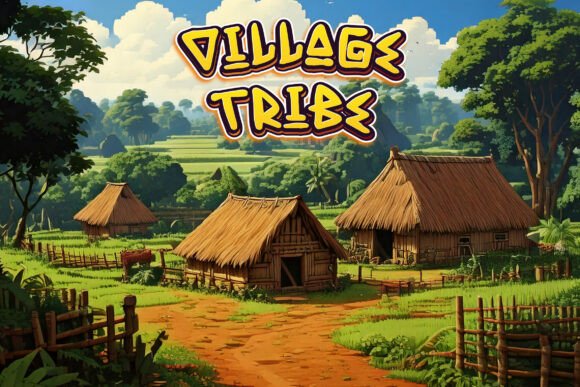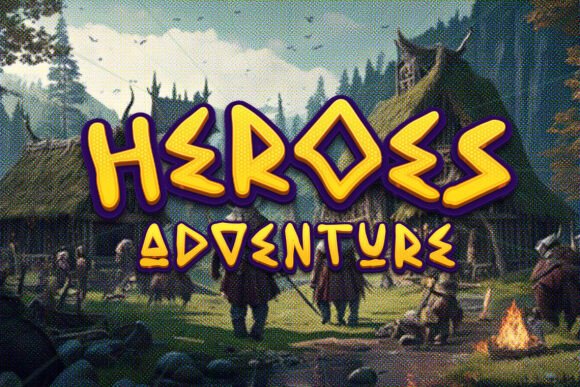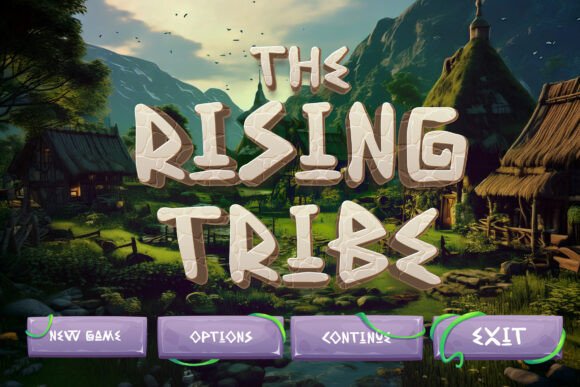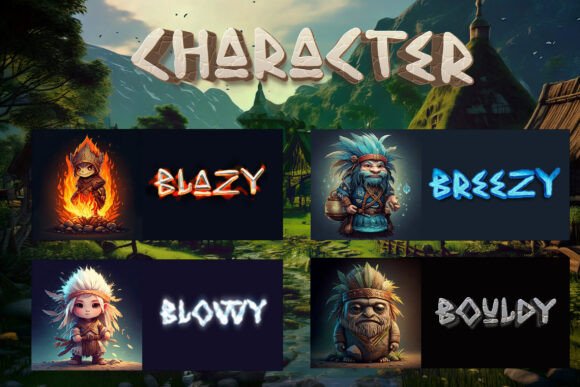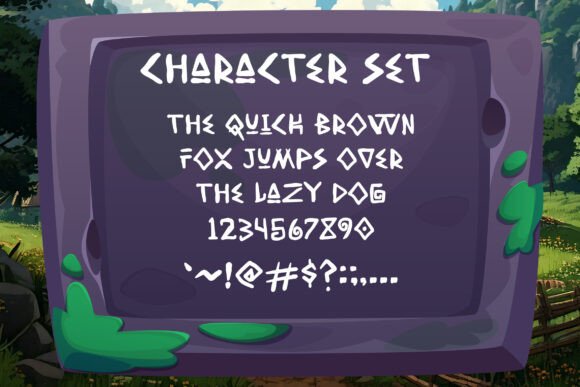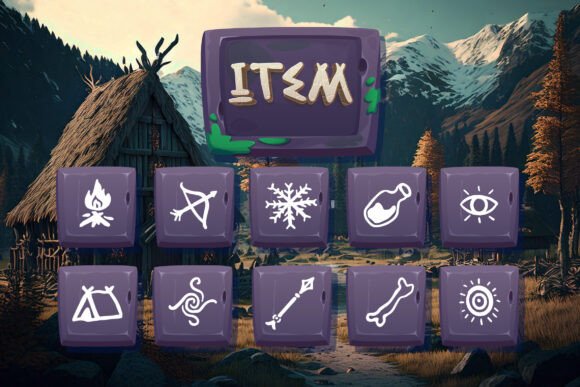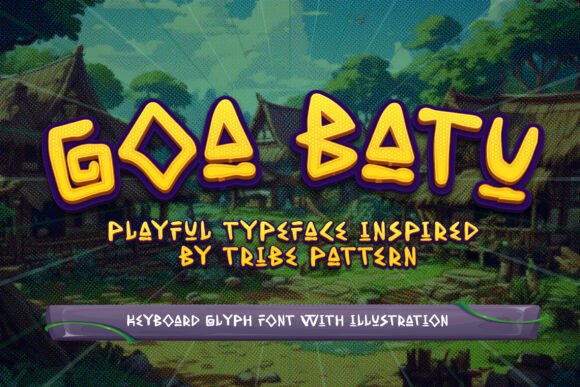
Introducing Goa Batu: Unleash the Spirit of Adventure with this Tribal-Inspired Display Font
Are you ready to embark on a journey through time and tap into the raw energy of ancient civilizations? Look no further than Goa Batu, a bold and adventurous display font that draws inspiration from the rugged terrains and tribal patterns of a bygone era. Designed with game aesthetics in mind, this font is perfect for designers and crafters seeking to infuse their projects with a sense of mystery, myth, and primal strength.
The Inspiration Behind Goa Batu
Goa Batu is more than just a font – it’s an experience. Its roots lie in the ancient tribal patterns and rugged terrains that evoke a sense of exploration and discovery. The font’s design is influenced by traditional tribal carvings, which are characterized by sharp angles, geometric forms, and a handcrafted texture. These elements have been carefully woven together to create a typeface that is both bold and adventurous.
Imagine a font that can transport you to a forgotten world, where myth and legend come alive. A font that can add a touch of primal strength to your designs, making them stand out in a crowded digital landscape. That’s what Goa Batu offers – a gateway to a world of mystery and wild energy.
Design Features of Goa Batu
Goa Batu boasts a range of design features that make it perfect for titles, logos, and UI elements. Its sharp angles and geometric forms are reminiscent of traditional tribal carvings, while its handcrafted texture adds a touch of authenticity. The font’s bold and adventurous spirit is evident in every letter, making it ideal for designs that demand attention.
Some of the key design features of Goa Batu include:
- Sharp Angles and Geometric Forms: Inspired by traditional tribal carvings, these design elements add a touch of ruggedness and primal strength to the font.
- Handcrafted Texture: The font’s handcrafted texture gives it a unique, organic feel that’s perfect for designs that require a sense of authenticity.
- Bold and Adventurous Spirit: Every letter in Goa Batu is designed to evoke a sense of adventure and mystery, making it perfect for titles, logos, and UI elements.
Perfect for Game Developers and Designers
Goa Batu is specifically designed with game developers and designers in mind. Its bold and adventurous spirit makes it perfect for a range of applications, including:
- Fantasy Adventure Games: Add a touch of mystery and myth to your game’s title, logo, or UI elements with Goa Batu.
- Survival Quests: Create a sense of primal strength and adventure with Goa Batu’s bold and rugged design.
- Ancient Civilization Themes: Transport your players to a forgotten world with Goa Batu’s tribal-inspired design.
Bring Character and Story to Your Designs
Goa Batu is more than just a font – it’s a storytelling tool. Its bold and adventurous spirit can add character and story to every letter, making your designs stand out in a crowded digital landscape. Whether you’re a game developer, designer, or crafter, Goa Batu offers a unique opportunity to tap into the raw energy of ancient civilizations and bring your designs to life.
In conclusion, Goa Batu is a bold and adventurous display font that’s perfect for designers and crafters seeking to infuse their projects with a sense of mystery, myth, and primal strength. Its tribal-inspired design, sharp angles, and handcrafted texture make it ideal for titles, logos, and UI elements that demand attention. Whether you’re creating a fantasy adventure game, a survival quest, or an ancient civilization theme, Goa Batu brings character and story to every letter. So why wait? Unleash the spirit of adventure with Goa Batu today.